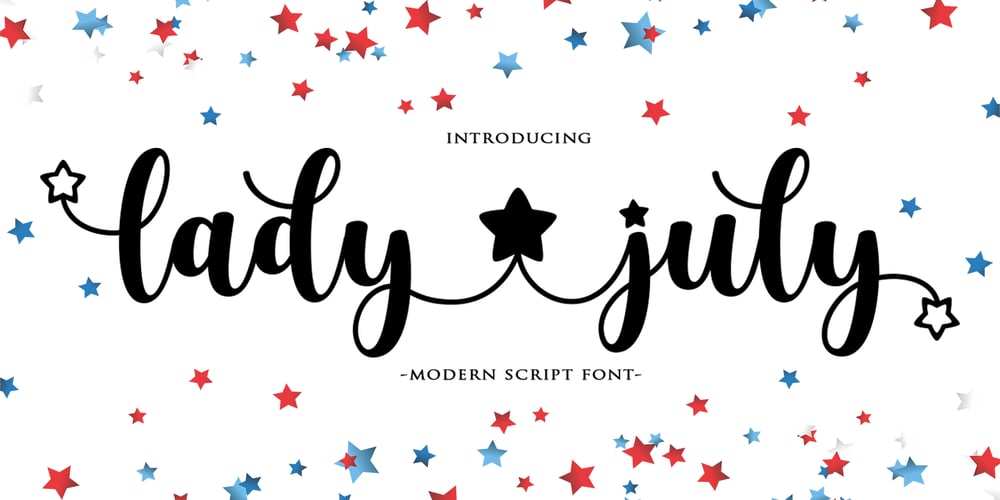
Lady July Font Family was designed by Muammar Kadafi and published by Attract Studio. Lady July contains 2 styles and family package options. Lady July Script is a modern calligraphy design, including Regular and Italic. This font is casual and beautiful with swash. Can be used for various purposes. such as logos, product packaging, wedding invitations, branding, headlines, signage, labels, signatures, book covers, posters, quotes, and more.Lady July Script includes a change in the OpenType language style, binding and international support for most Western languages. To activate the OpenType Stylistic alternative, you need a program that supports OpenType features such as Adobe Illustrator CS, Adobe Indesign & CorelDraw X6-X7, Microsoft Word 2010 or newer versions. How to access all alternative characters using Adobe Illustrator:https://www.youtube.com/watch?v=XzwjMkbB-wQLady July Script is coded with PUA Unicode, which allows full access to all additional characters without having to design special software. Mac users can use the Font Book, and Windows users can use Character Map to view and copy one of the additional characters to insert into your favorite text editor / application. How to access all alternative characters, using Windows Character Map with Photoshop:https://www.youtube.com/watch?v=Go9vacoYmBwIf you need help or have questions, please let me know. I am happy to help 🙂 Thank you & Congratulations on Designing!